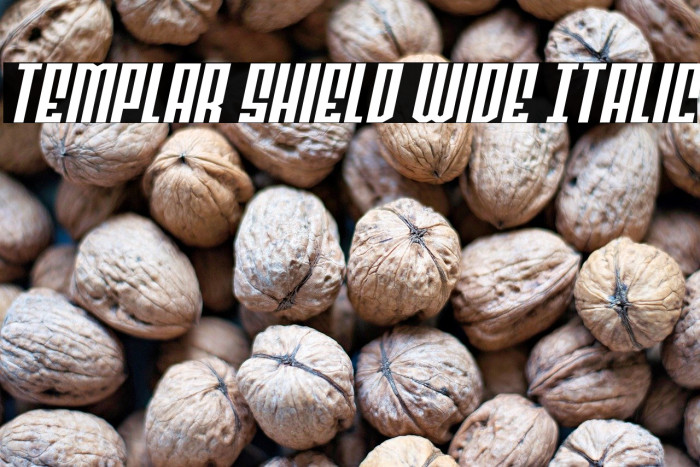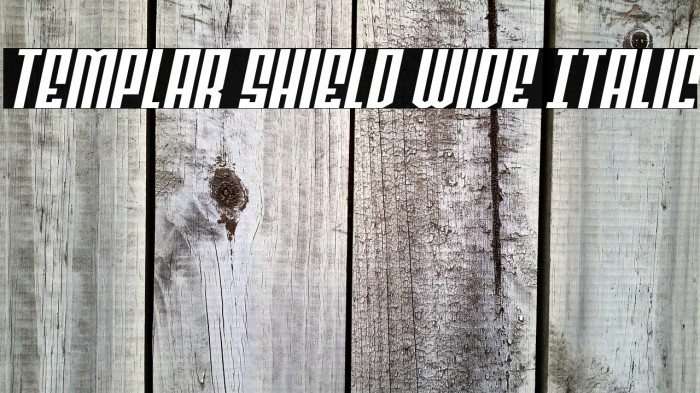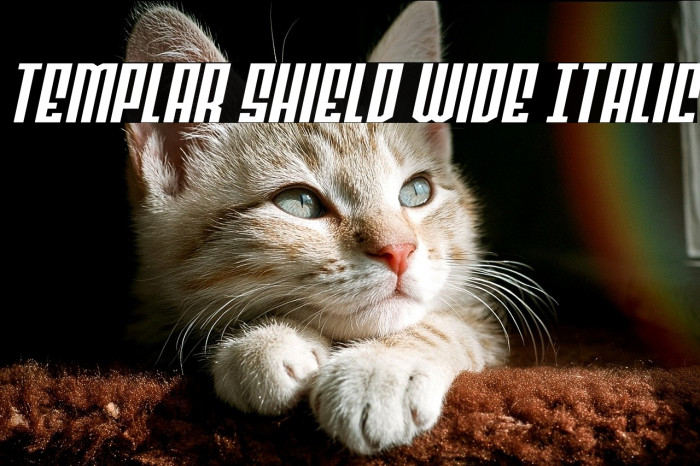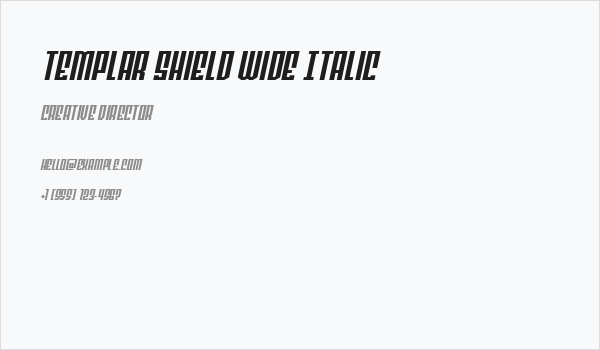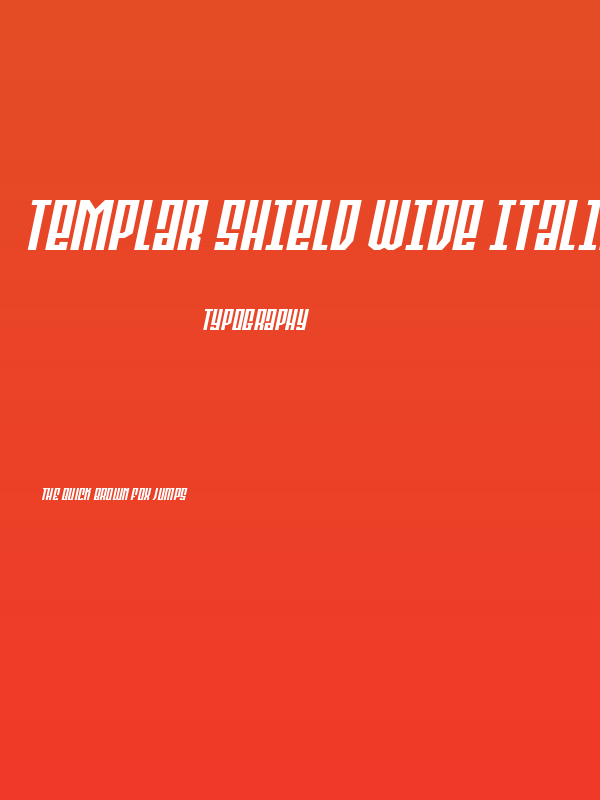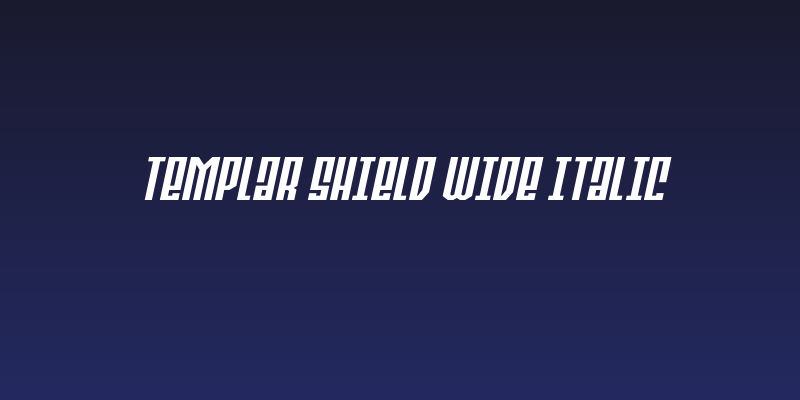
Templar Shield Wide Italic Font
Templar Shield Wide Italic Description
This font features a bold and dynamic design with a strong italic slant, giving it a sense of motion and energy. The characters are wide and angular, with sharp edges and a futuristic feel. The uppercase and lowercase letters maintain a consistent style, with a unique geometric structure that stands out. Numbers and special characters follow the same bold and angular theme, making the font suitable for impactful and attention-grabbing designs. The overall appearance is modern and assertive, perfect for projects that require a strong visual presence.